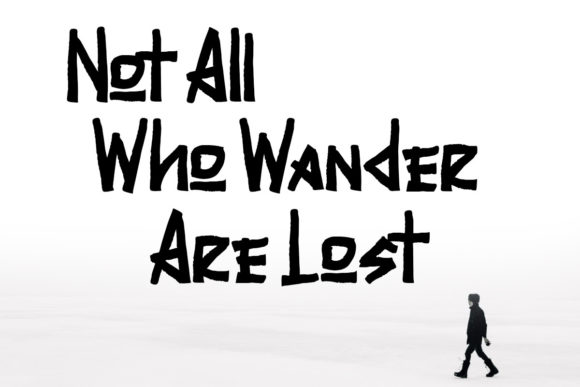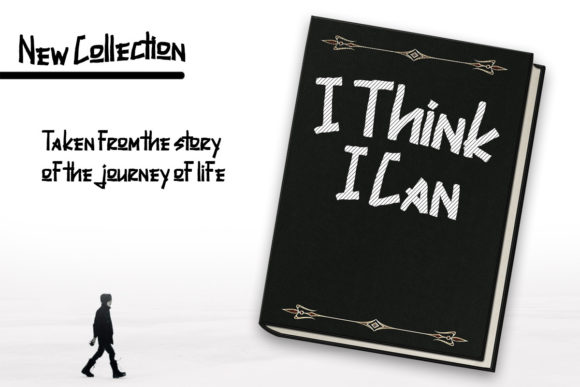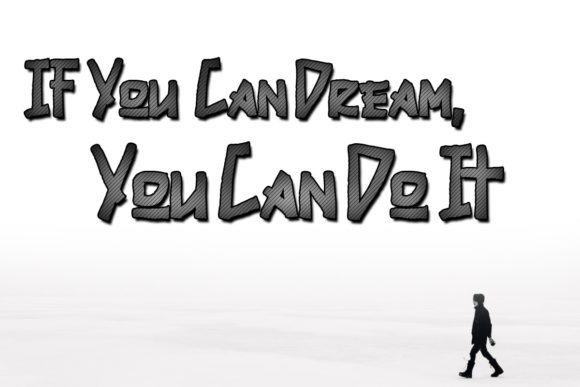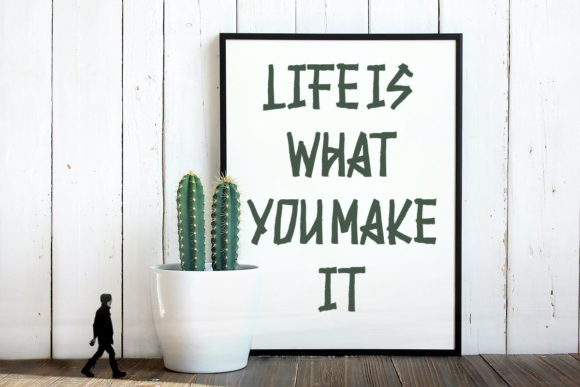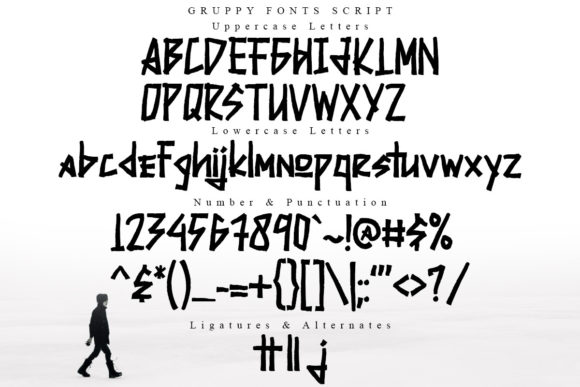
Introduction to Gruppy Font Font
Fonts play a crucial role in design, and the Gruppy Font font is a typeface that brings both character and versatility to any project. Whether you’re working on a branding project, a website, or a print design, the Gruppy Font font offers a unique style that can elevate your work.
Gruppy is a cool, quirky and whimsical display font.
Whether you use it for cartoon related designs, children games or just any creation that requires a lovely touch, this font will be an amazing choice .
Key Features of Gruppy Font Font
Why Choose Gruppy Font Font?
The Gruppy Font font is more than just a typeface – it’s a design tool that helps you communicate your message with style and clarity. Its unique character set and versatile design make it suitable for a wide range of applications, from elegant invitations to bold headlines.
With its carefully crafted letterforms and balanced proportions, the Gruppy Font font ensures readability and visual appeal across all mediums.
What makes Gruppy Font font special?
The Gruppy Font font stands out with its unique design, exceptional readability, and versatility across various design applications.